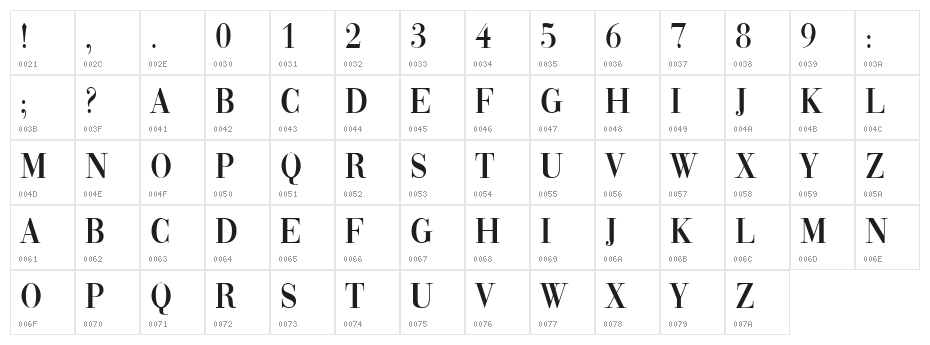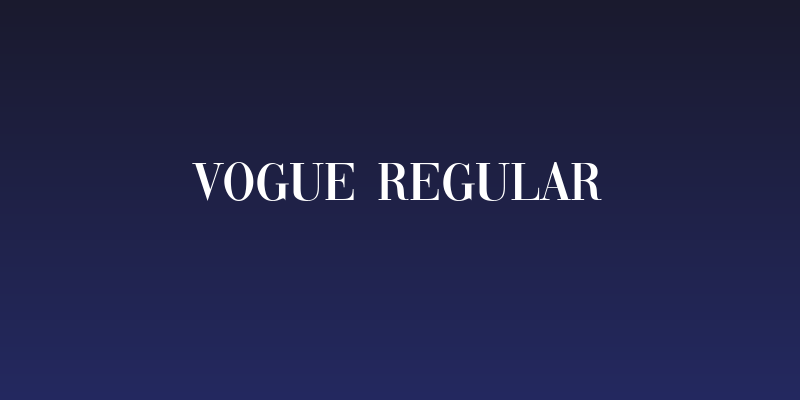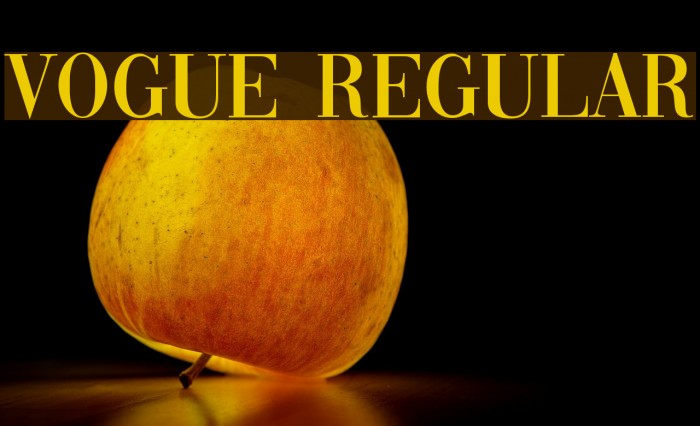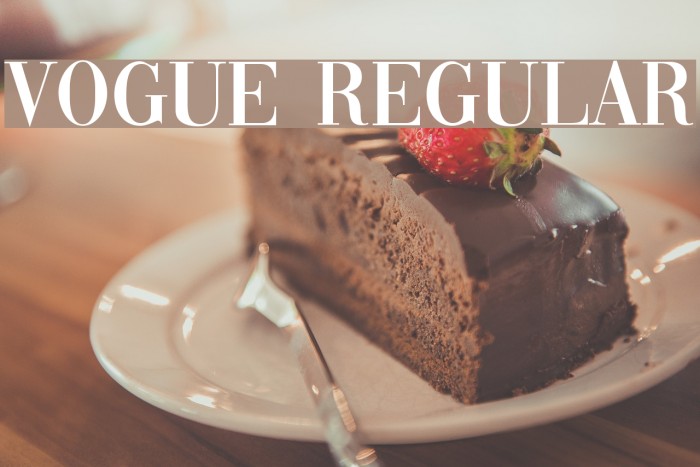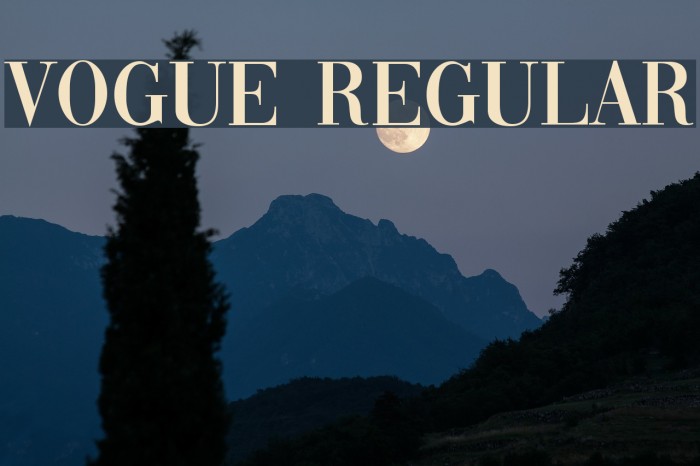
Vogue Regular Font
Vogue Regular Description
This font exudes elegance and sophistication, characterized by its high contrast between thick and thin strokes. The serifs are sharp and pronounced, adding a classic touch to the overall design. The uppercase letters are tall and commanding, while the lowercase letters maintain a refined and balanced appearance. The numerals are distinct and stylish, complementing the overall aesthetic. This font is perfect for creating a luxurious and timeless feel in any design project.
| Overall Style | Classic |
| Use Case | Headlines, Logos, Editorials |
| Proposed Projects | Ideal for fashion magazines, luxury branding, editorial layouts, and high-end product packaging. |